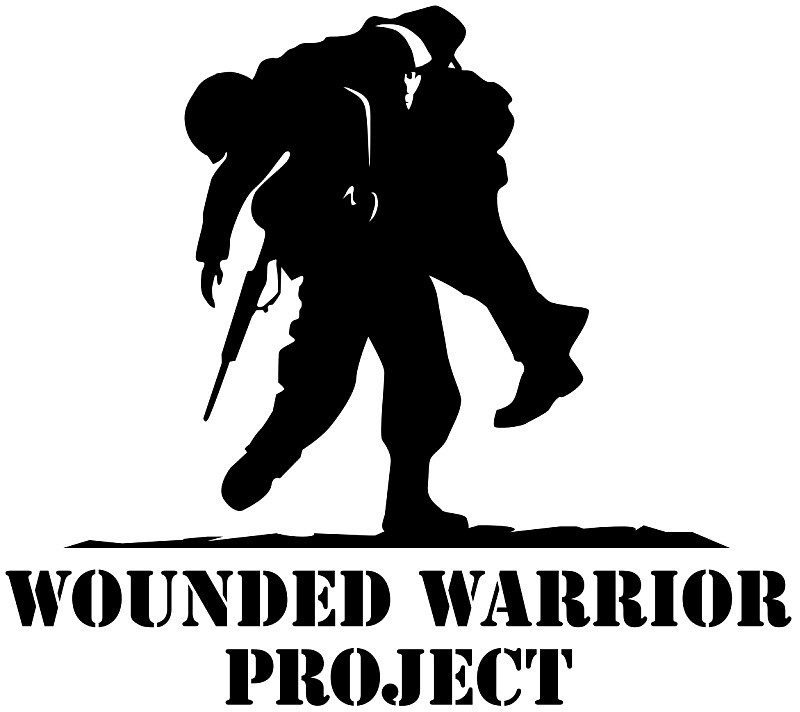
Wounded Warrior Project Font
Fonts in UseThe Wounded Warrior Project (WWP) is a nonprofit organization that provides support and programs for injured veterans and their families. Its mission is to honor and empower wounded warriors.
WWP's logo depicts soldier silhouettes and the charity's name in a Stencil typeface by Gerry Powell for American Type Founders, resembling stenciled letters on boxes and crates.